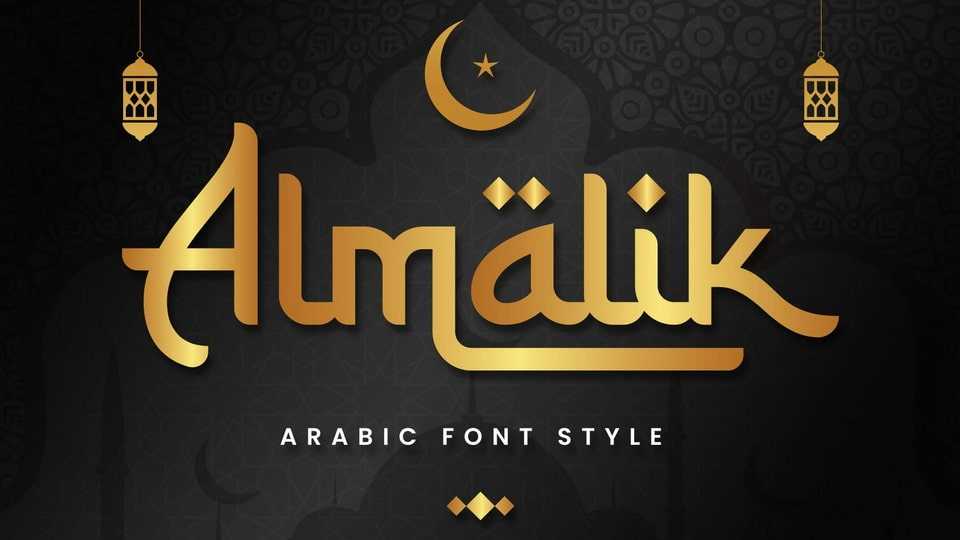
Download Almalik font, an Arabic style typeface, created in monoline shape and based on original Arabic letters adapted into Latin typography. Almalik represents the middle-east feel in a modern touch, with fewer calligraphy shapes, and dynamic swashes.